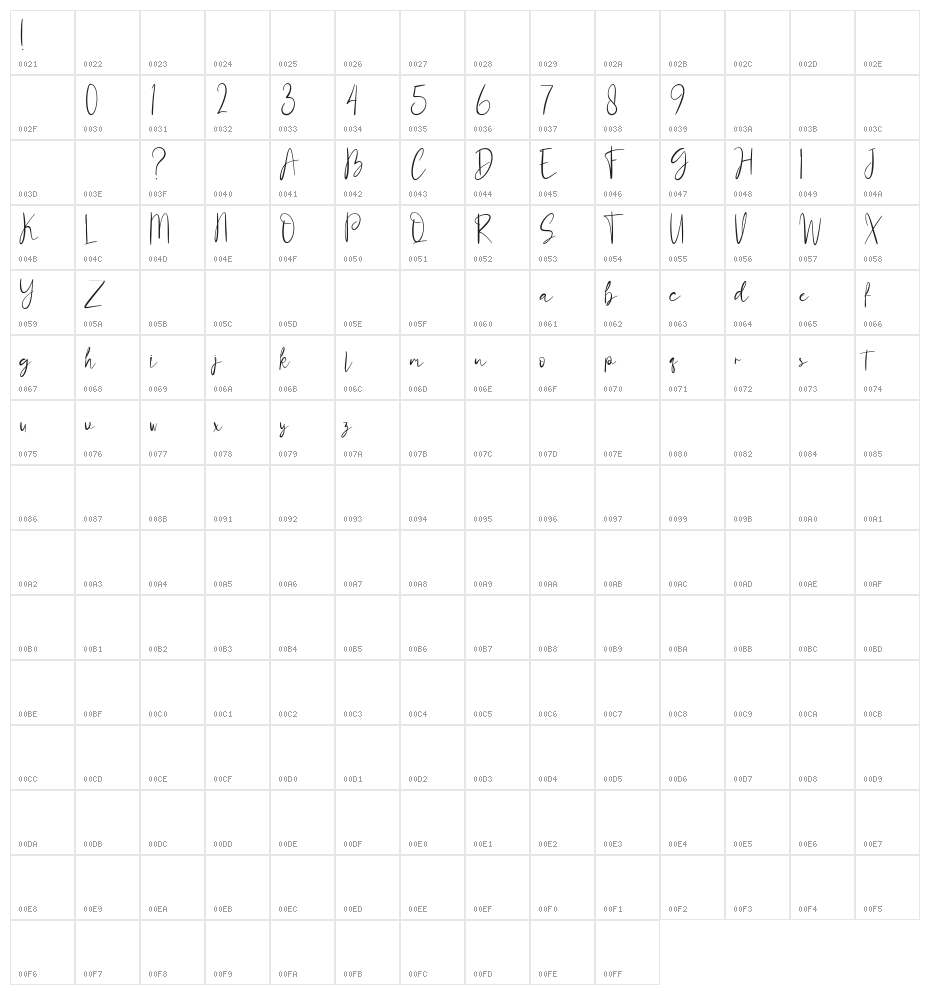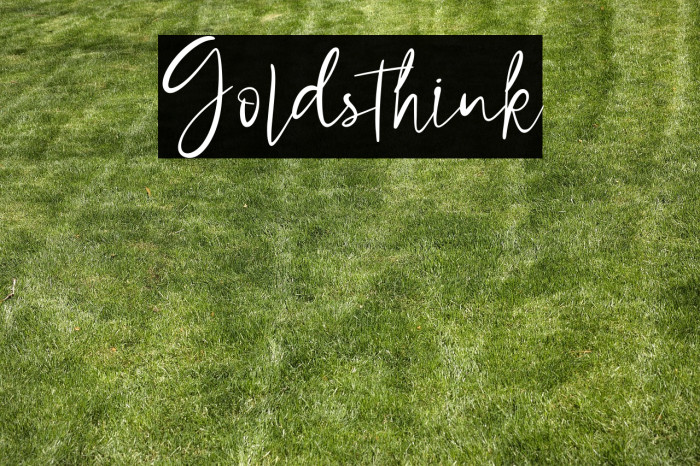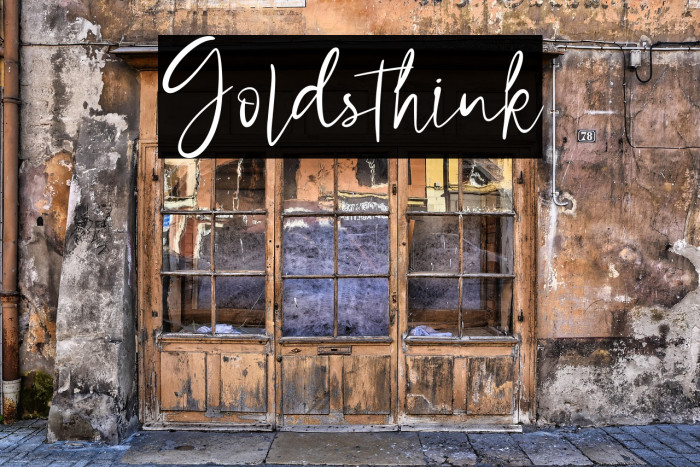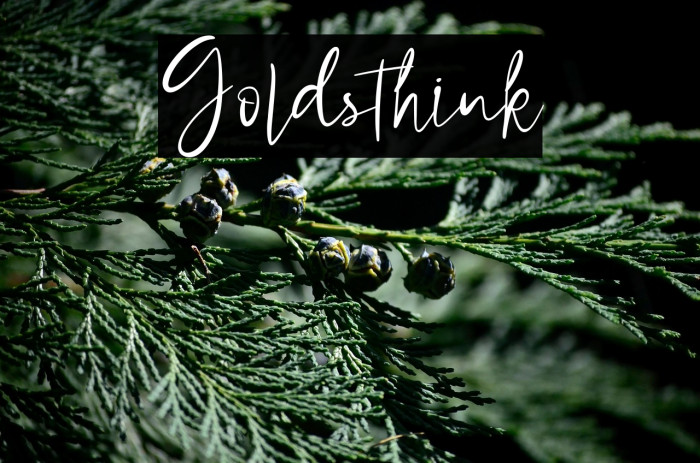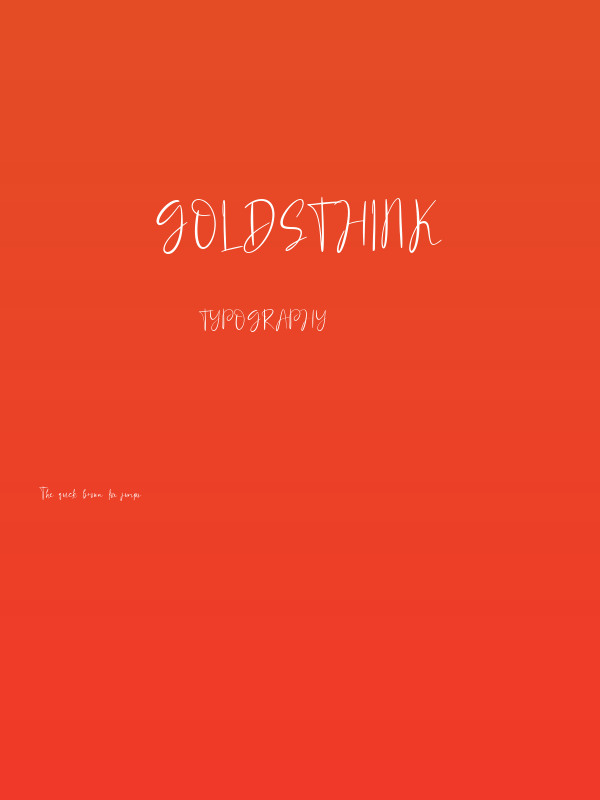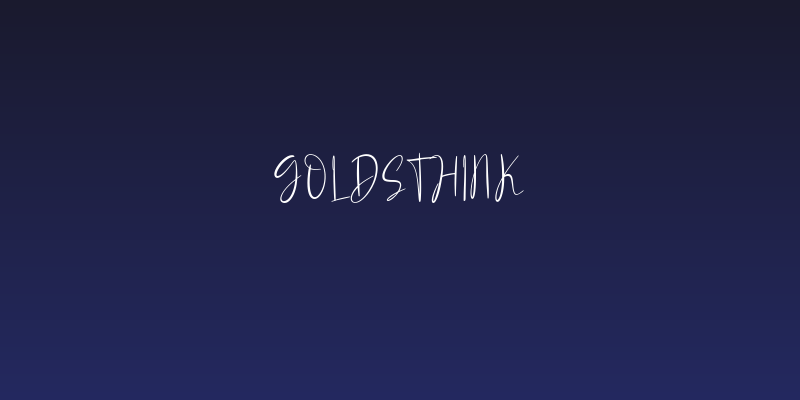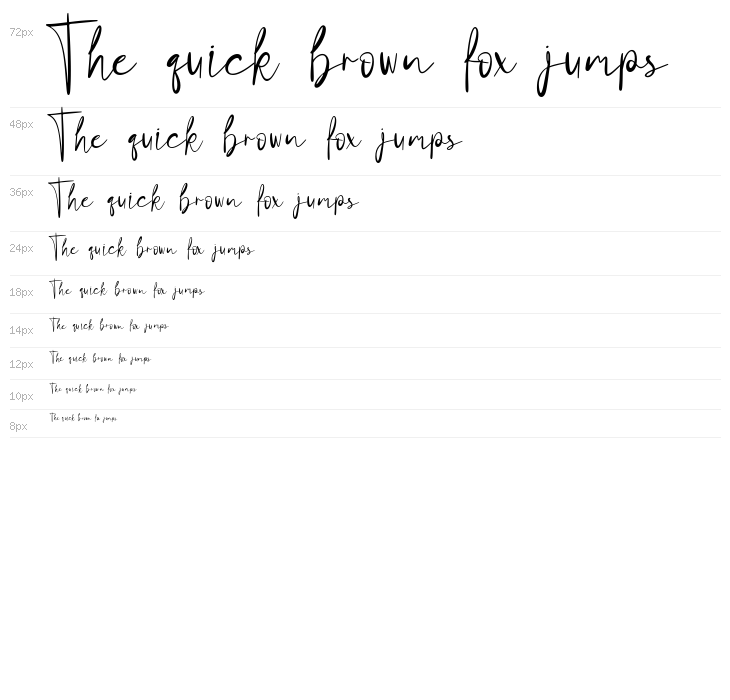
Goldsthink Font
Goldsthink Description
This font features a playful and whimsical handwritten style, characterized by its fluid and dynamic strokes. The uppercase letters are tall and slender, with a slight slant that adds a sense of movement. The lowercase letters maintain a consistent flow, with some characters extending below the baseline, enhancing its casual and informal appearance. The numerals are distinct and easy to read, complementing the overall style. Special characters like the exclamation mark and question mark are elongated, adding to the font's unique personality. This font's charm lies in its imperfect, hand-drawn quality, making it ideal for projects that require a personal touch.
| Proposed Projects | Ideal for greeting cards, invitations, personal branding, and creative projects that require a personal touch. |